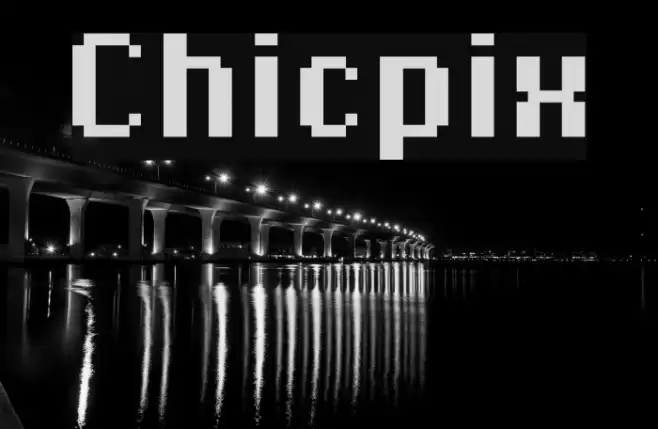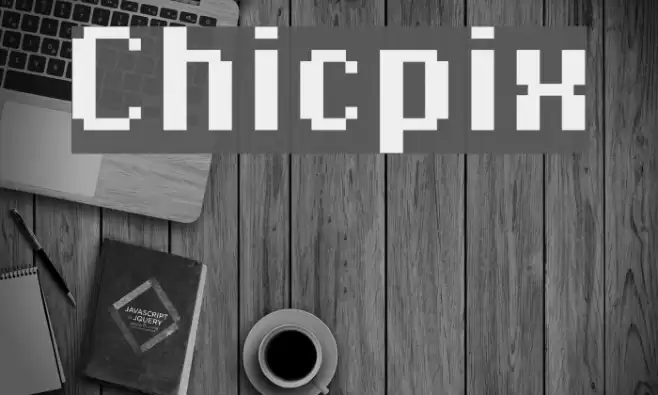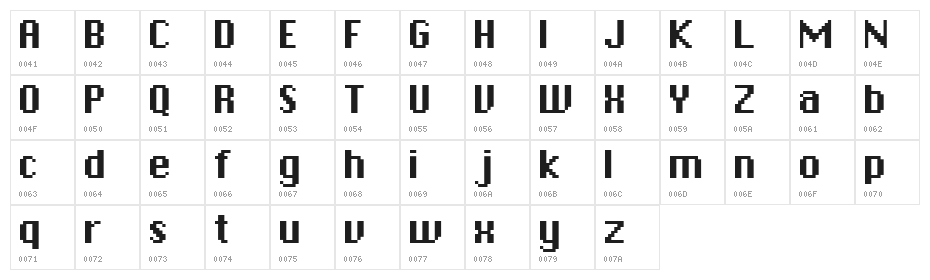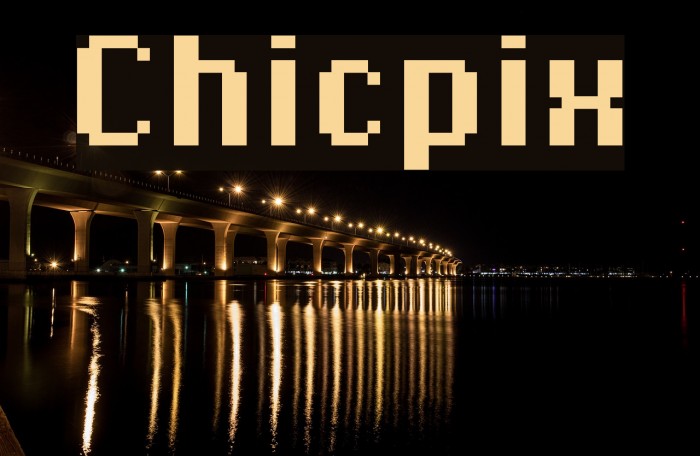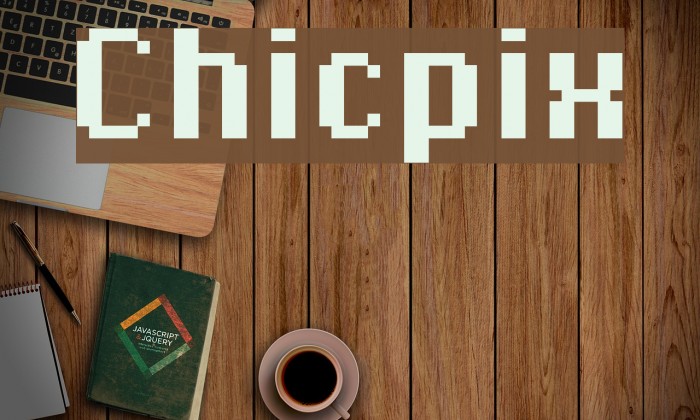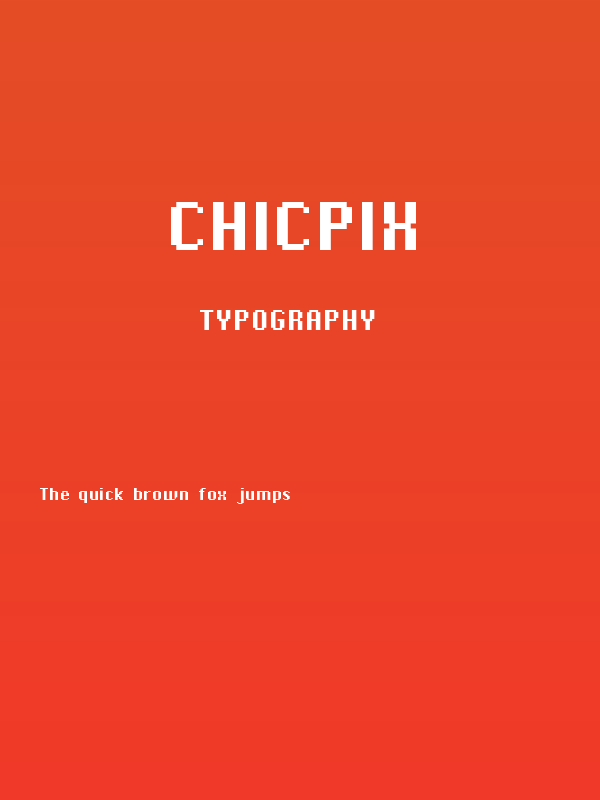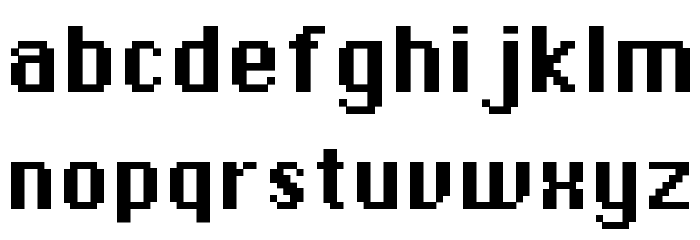
Chicpix Font
Chicpix Description
This font features a pixelated, blocky design reminiscent of early digital displays and video games. Each character is constructed with a uniform grid-like structure, giving it a distinctly retro and digital aesthetic. The uppercase and lowercase letters maintain consistent proportions, enhancing readability while preserving the font's unique style. The numerals and special characters follow the same pixelated pattern, ensuring a cohesive look across all glyphs. This font's simplicity and geometric precision make it ideal for projects that aim to evoke nostalgia or a tech-inspired theme.
A pixelated, retro-style font with a digital aesthetic from Pixel fonts.
- Proposed Projects: Ideal for video game design, retro-themed posters, digital art, and tech-inspired branding.
- Overall Style: Retro, Digital
- Use Case: Headlines, Logos, Digital displays